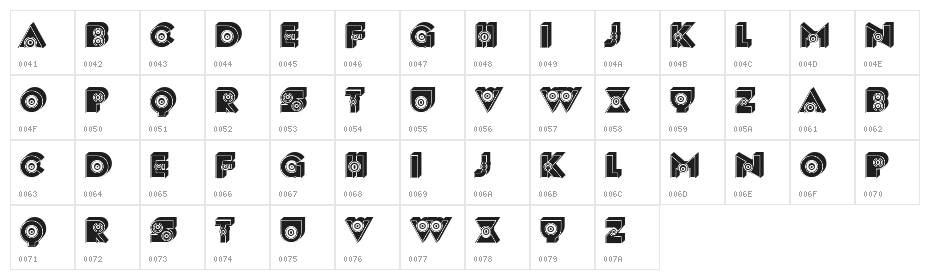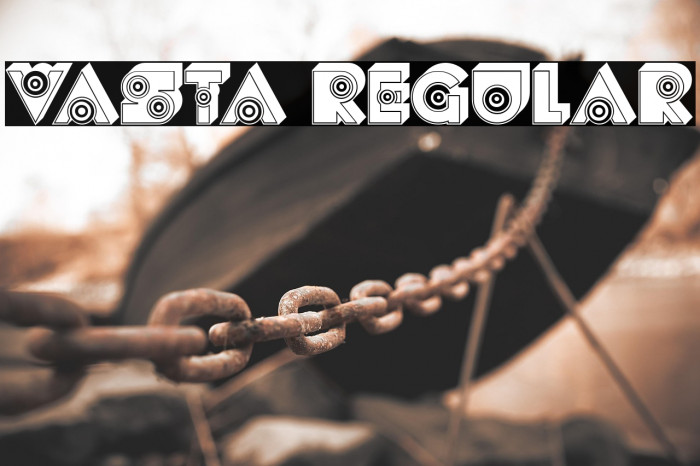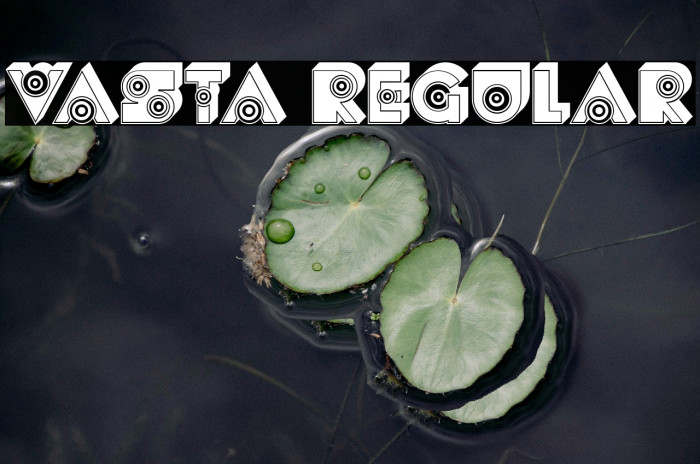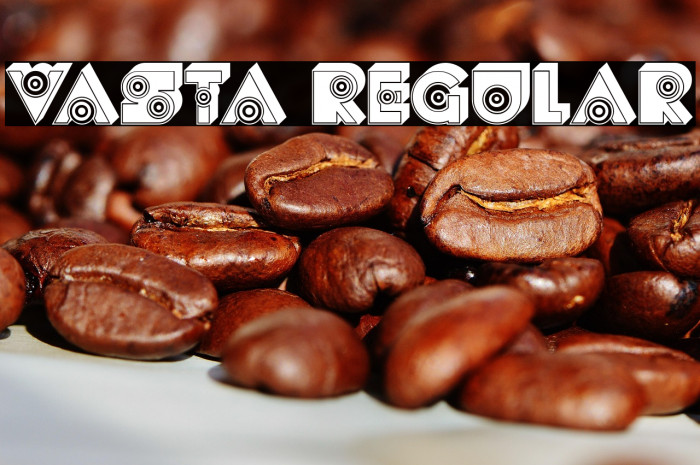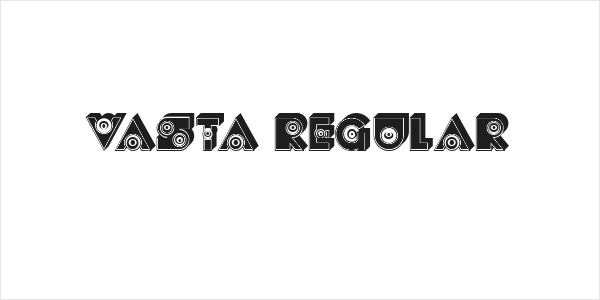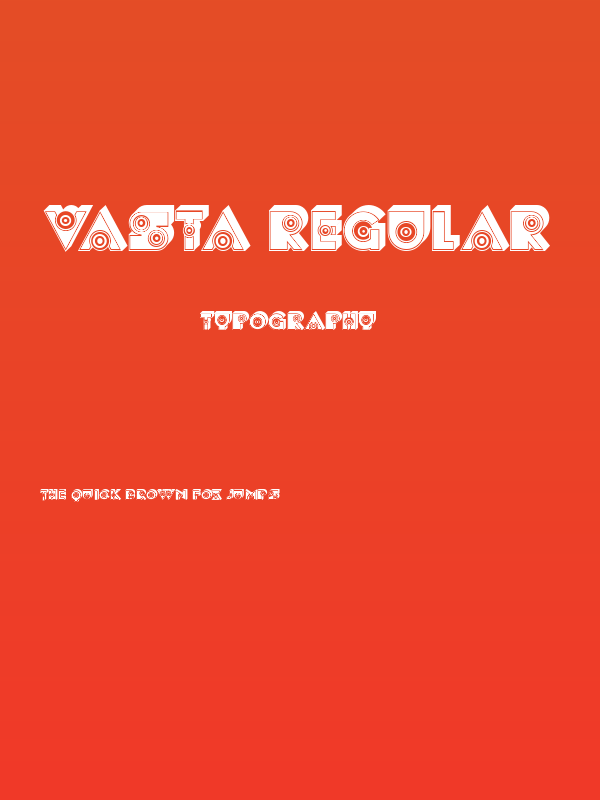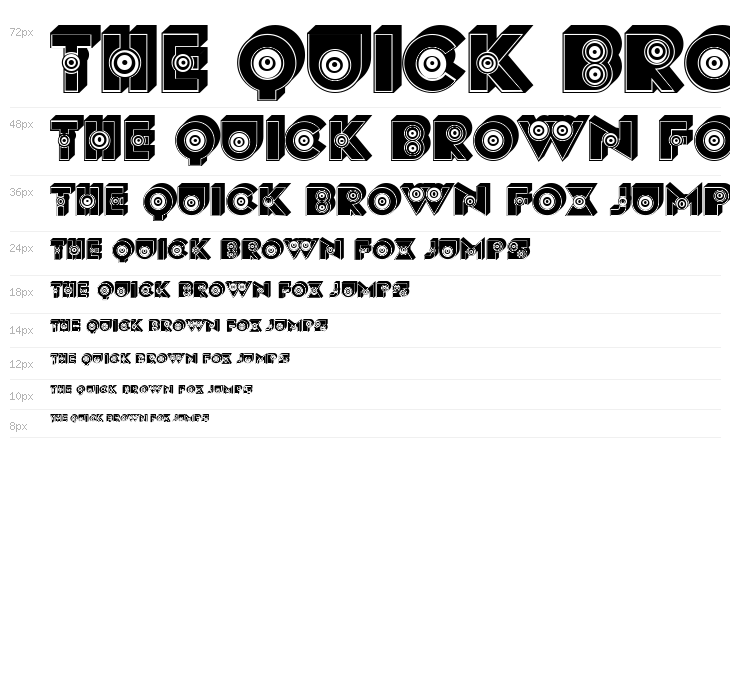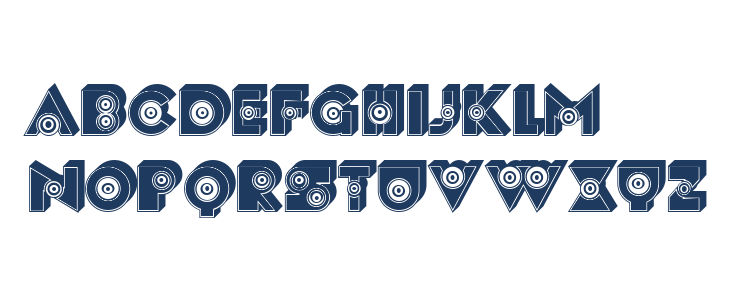
Vasta Regular Font
Vasta Regular Description
This font features a bold and decorative style with intricate geometric patterns embedded within each character. The letters are constructed with a combination of solid fills and circular motifs, creating a striking visual effect. The design is highly detailed, with a strong emphasis on symmetry and balance, making it ideal for eye-catching displays. The uppercase letters are particularly prominent, showcasing a unique blend of modern and retro aesthetics. This font is perfect for projects that require a bold statement and a touch of artistic flair.